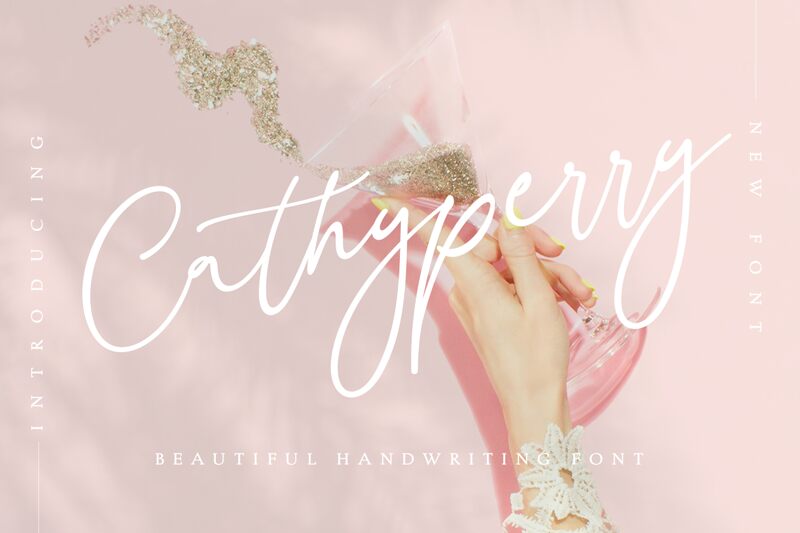
Cathyperry, designed by Mayofont, exudes a personal touch with its handwritten style that seems to dance elegantly across the page. The font's gentle strokes suggest a lightness that is both inviting and approachable, creating an intimate vibe in every curve and line. Its aesthetic charm lies in the fluidity of its characters, reminiscent of traditional calligraphy yet infused with a modern flair.
Ideal for projects that require a blend of sophistication and warmth, Cathyperry shines in invitations, branding for boutique businesses, or any design endeavor seeking to convey authenticity and grace. This font's individuality will undoubtedly add character to your creative works while maintaining readability and visual delight.